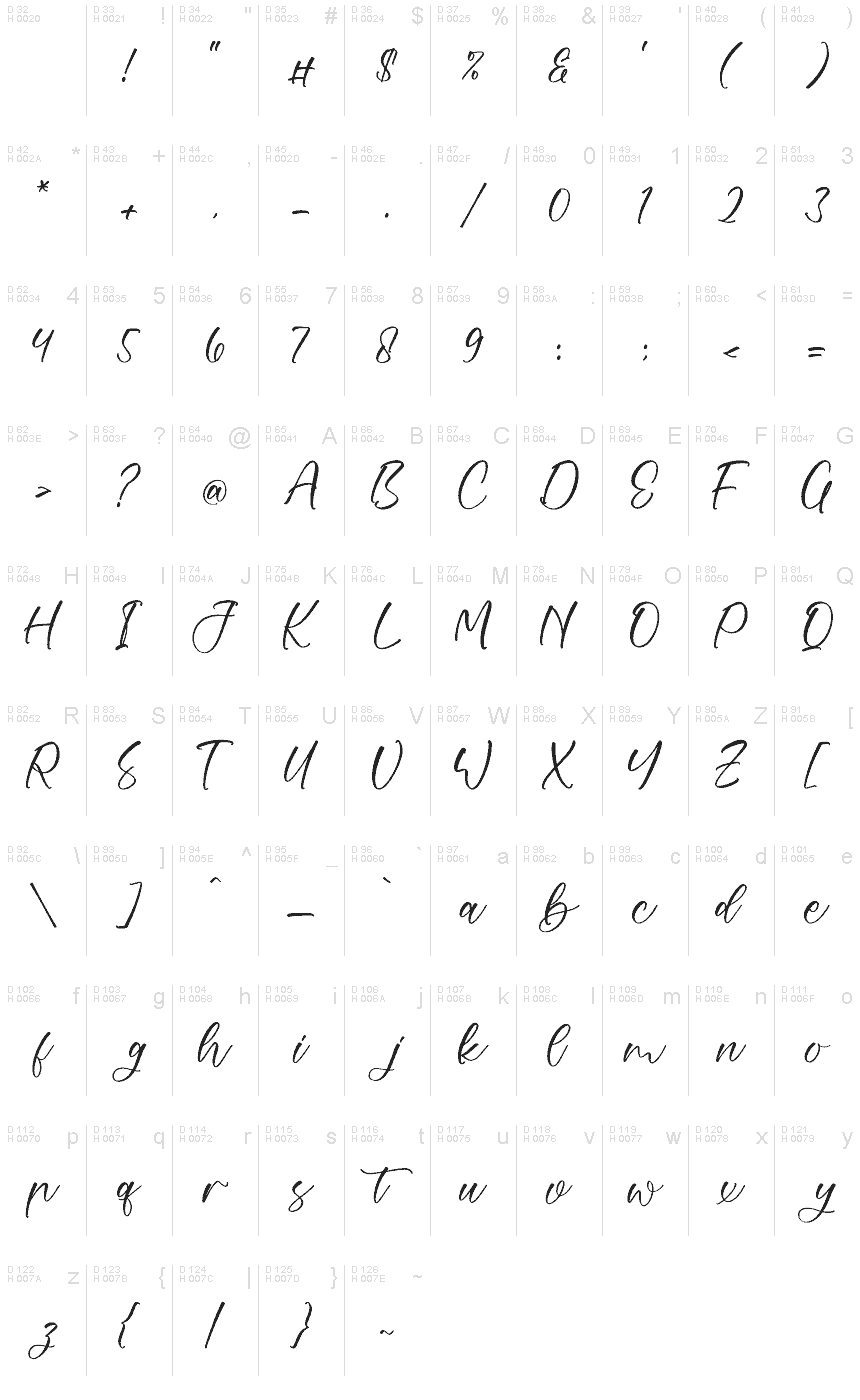
Cantona Zalone
Unveiling a new Cantona Zalone script font, a fresh and creative handwritten typeface by Perspectype Studio with an authentic look. Zalone is inspired by traditional calligraphy practices and vintage fonts with strong personalities and the result is a font that mixes delicate curves with sharp angled dashes for a unique look.
It can be used for logotype and branding projects, wedding stationery, handwritten invitations and announcements, and packaging labels.